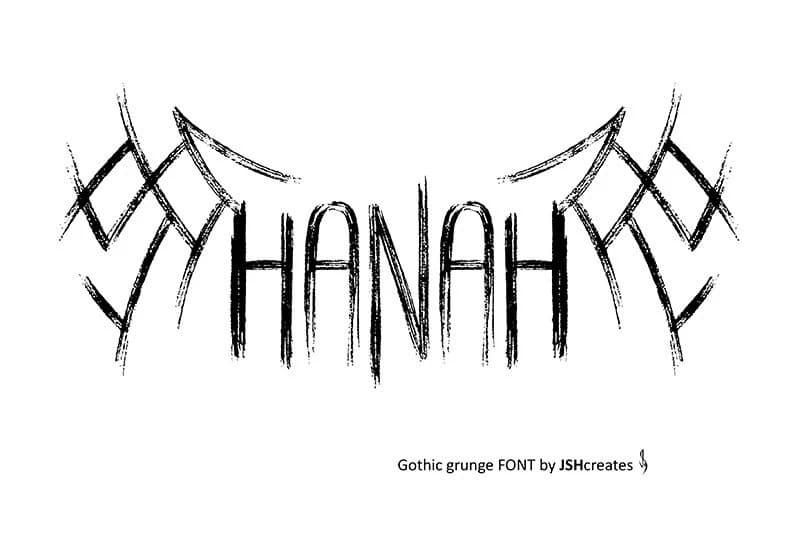
Hanah Font
Hanah Font is a bold gothic grunge font that blends dark, edgy aesthetics with a raw, textured feel. Its striking letterforms make it perfect for eye-catching advertising and display use, whether on banners, book covers, shirts, posters, tattoos, or logos.